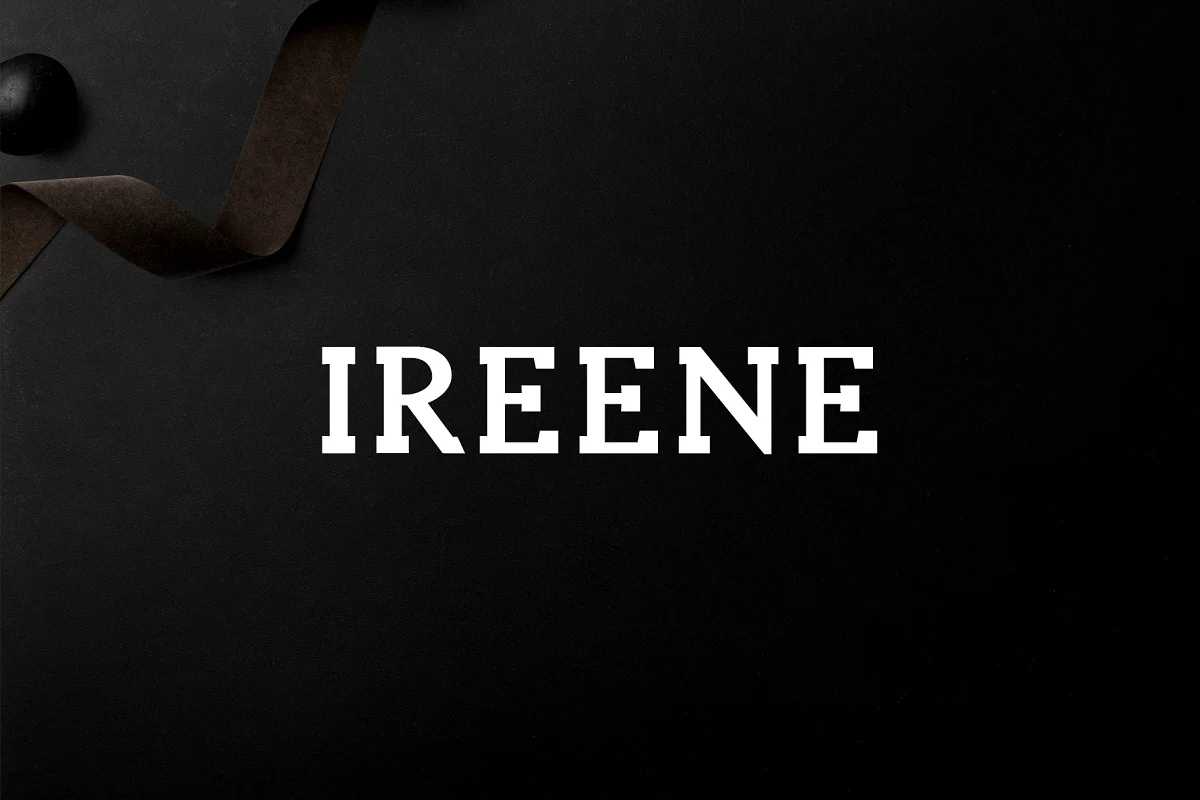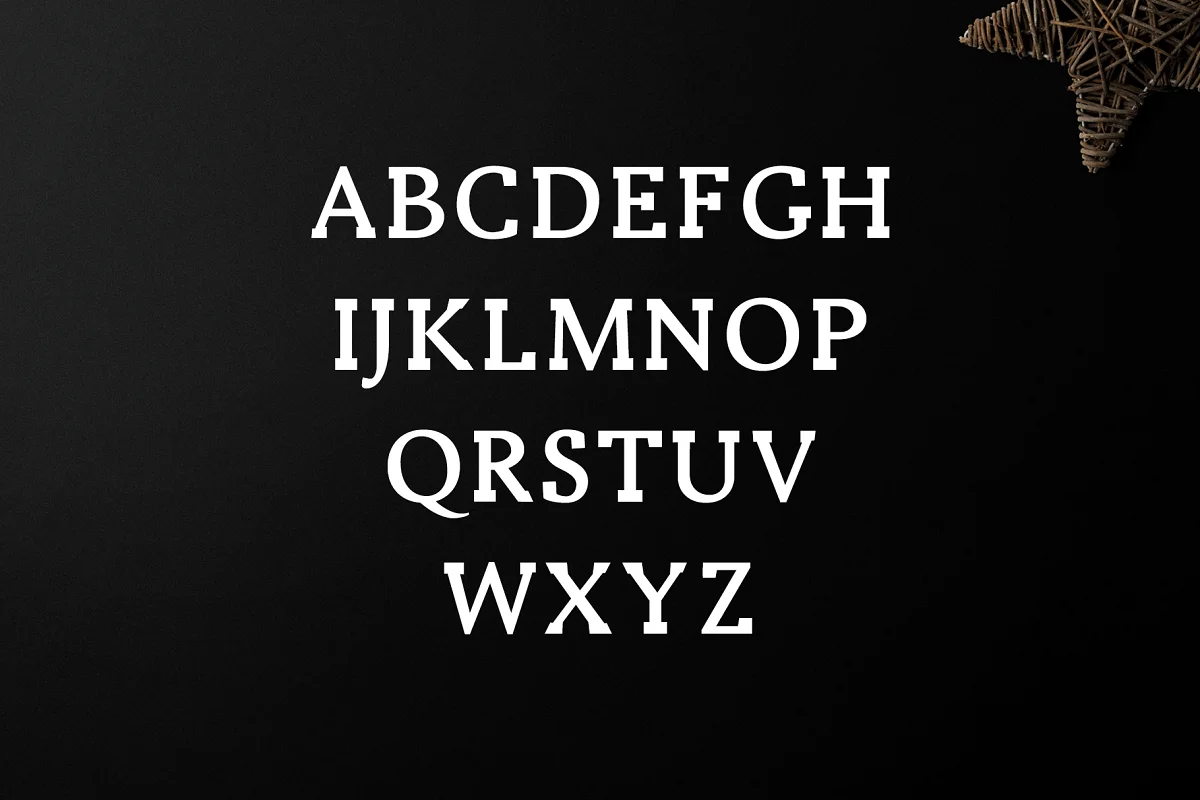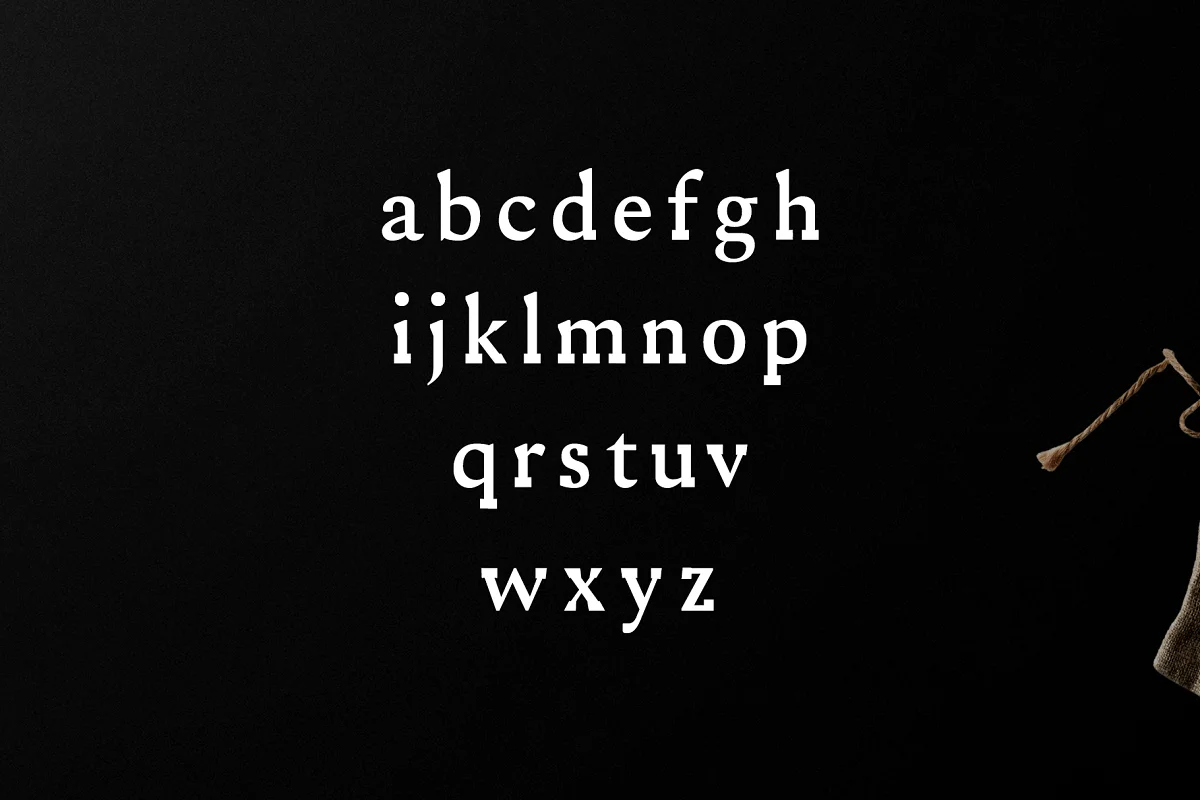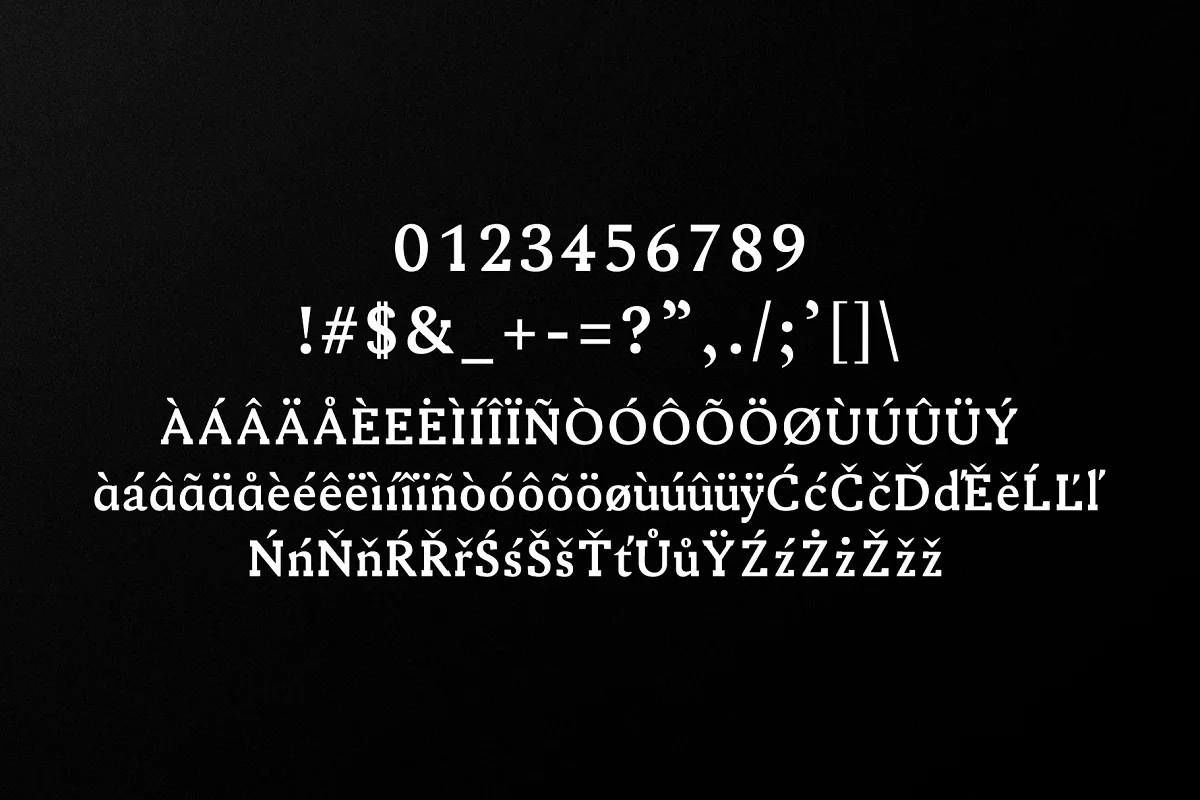
About the Ireene Serif 3 Font
Ireene Serif 3 Font Family Pack features a unique and modern serif look and feel. Perfect for gorgeous logos, titles, web layouts, and branding.
It looks gorgeous in all caps with a wide-set spacing if you want to try a classy look, or beautiful on its own in capital and lowercase letters for something completely timeless.
- Font Weight: Regular, Outline, and Bold
Ireene Font Features:
- Uppercase Multilingual Letters
- Lowercase Multilingual Letters
- Numbers & Punctuation
- Non-English Characters ( Latin Supplement + Latin Extended-A )